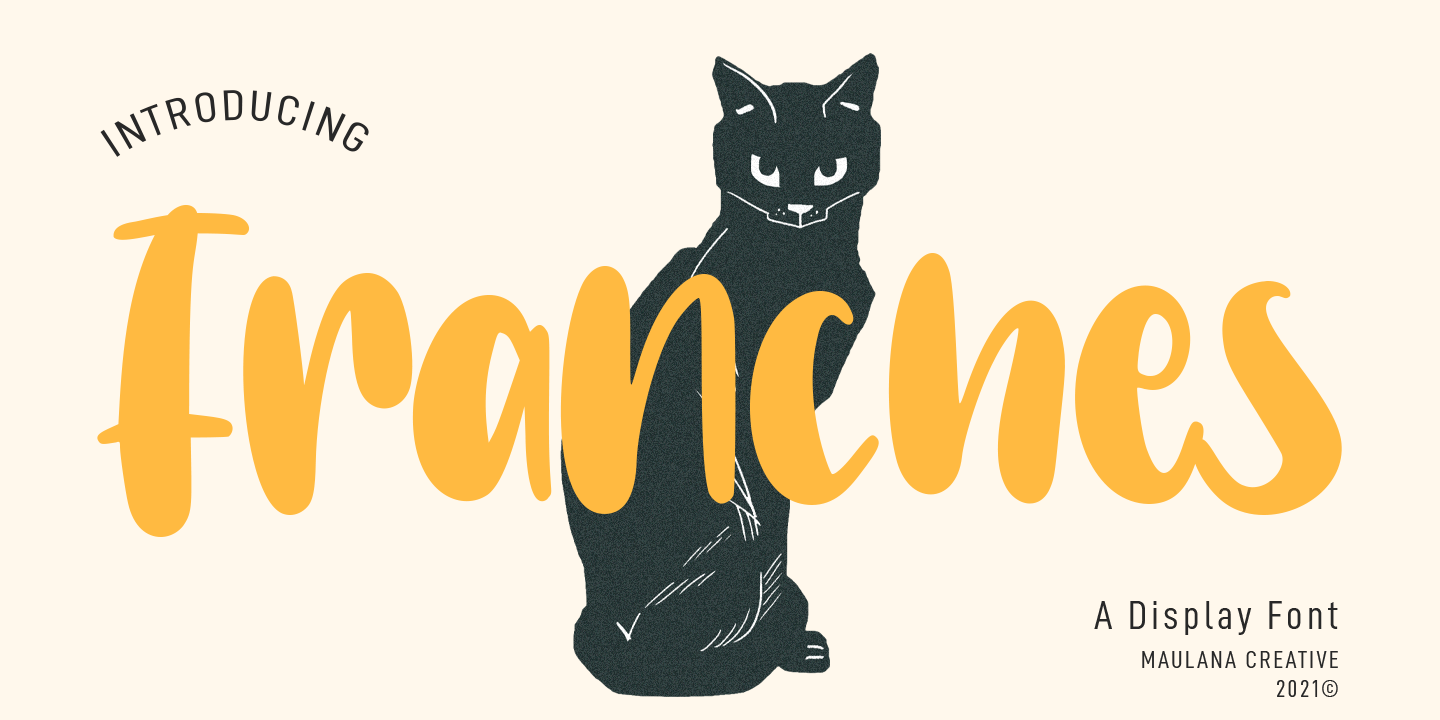
Franches Font is perfect for honest business branding, transparent company identity, authentic testimonial campaigns, straightforward legal documentation, genuine product packaging, direct communication materials, sincere customer service signage, trustworthy financial services, and candid social media content. This authentic typeface brings honest transparency and genuine reliability to both digital and print design applications.
Franches Font is exciting because it embodies the refreshing honesty and authentic transparency of genuine communication, making it an exceptional choice for designers who want to convey trustworthiness and sincerity with authentic straightforward appeal. Its clear letterforms and honest character provide the perfect combination of transparent elegance and functional reliability, ensuring your projects communicate trust, authenticity, and honest excellence that resonates with audiences seeking genuine transparency experiences and reliable business practices.
The Franches Font family includes honest weight variations and authentic elements, featuring light, regular, medium, and bold weights with complementary straightforward styles, genuine ligatures, and transparent decorative touches. Each style maintains consistent honest aesthetics while offering flexibility for different transparency applications, allowing designers to create trustworthy visual systems that reflect authentic values and genuine sophistication.
Whether you're designing for trustworthy brands, transparent organizations, or authentic projects, Franches Font Free Download delivers genuine honest appeal and transparent sophistication that connects with audiences seeking authentic reliability and trustworthy experiences. This premium typeface offers designers the honest elegance and authentic charm needed to create designs that communicate business transparency, genuine trust, and honest authenticity effectively. The font's straightforward character makes it perfect for honest branding, transparent campaigns, and authentic applications where genuine credibility is essential. Download Franches Font today and authenticate your creative projects with genuine honest sophistication and transparent typography excellence that defines trustworthy design standards.